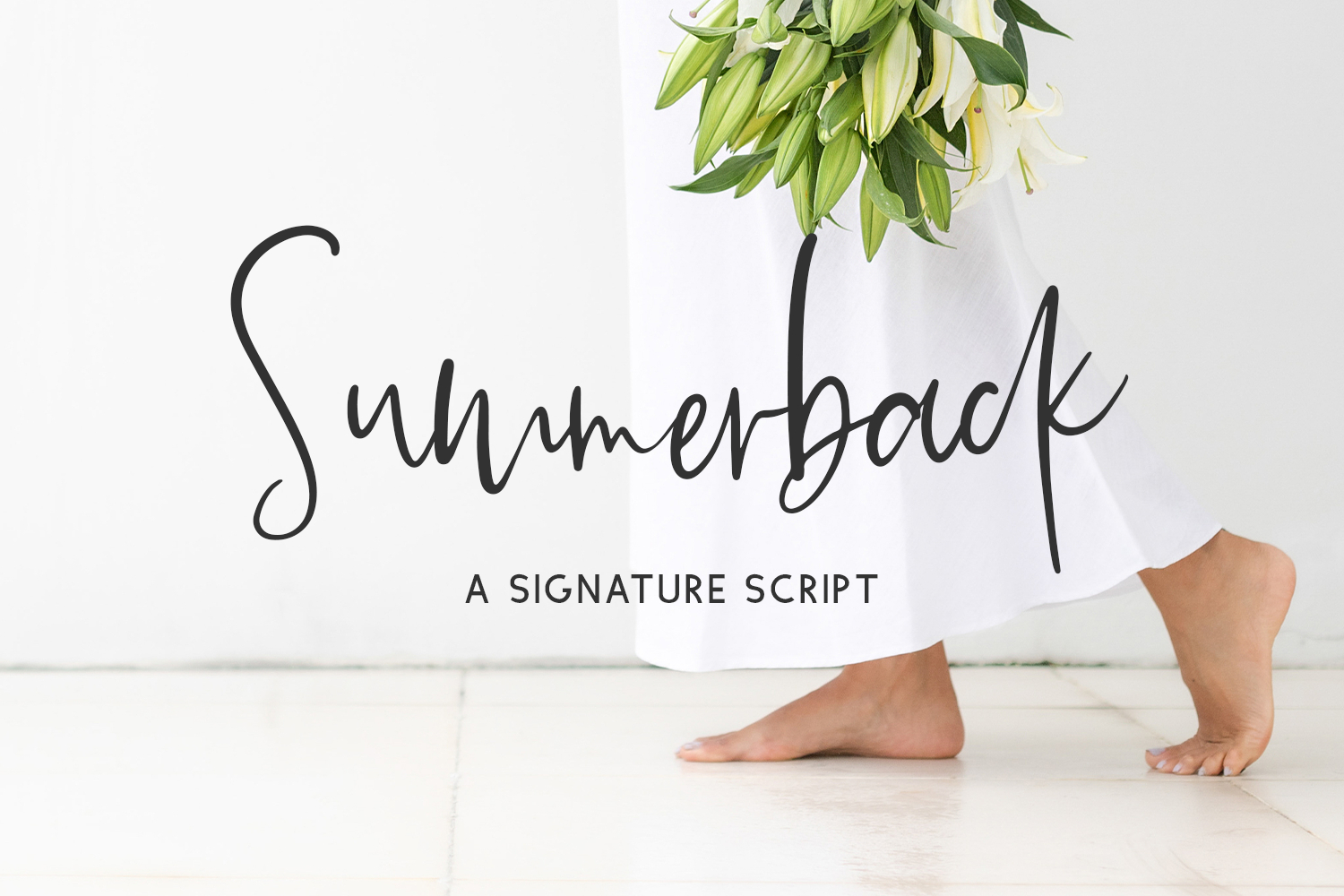
Summerback Script Font
Introducing Summerback Script, a handwritten signature style font. This chic, stylish font features a messy, casual look, mimicking handwriting.
- 26 lowercase alternate characters
- 34 ligatures - ab, ad, ah, ak, al, am, an, ar, bb, bl, cc, ch, ck, cl, dd, ee, er, ff, fi, fl, fo, gg, ll, mm, nn, oo, pp, rr, sh, sl, ss, st, th, tt